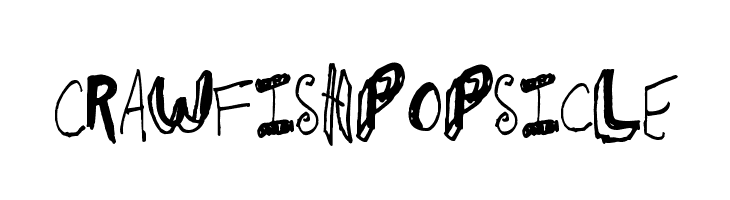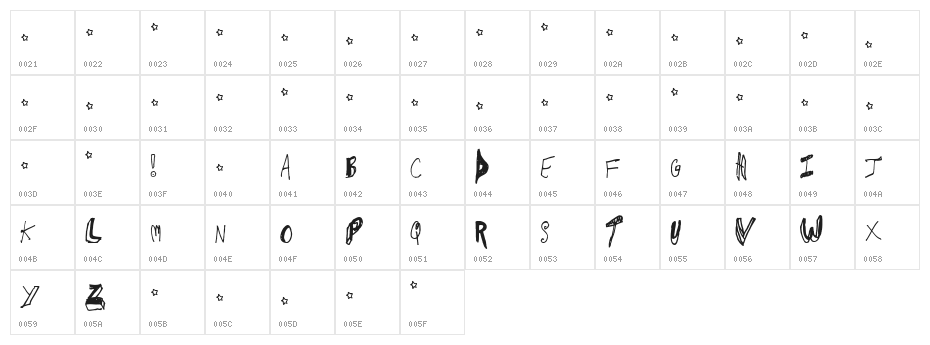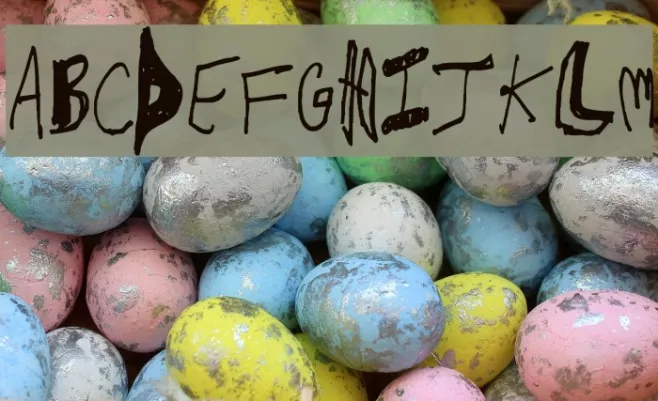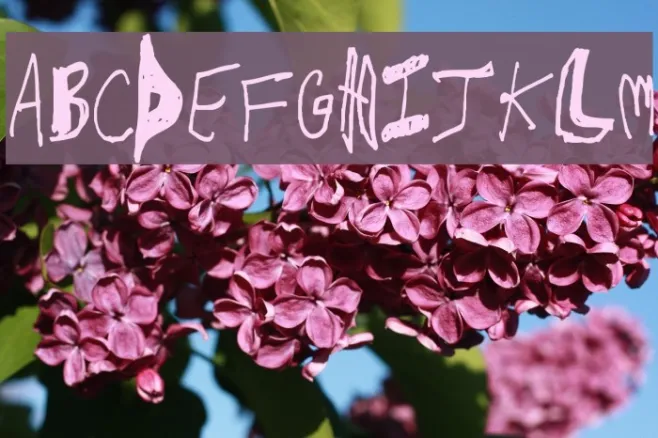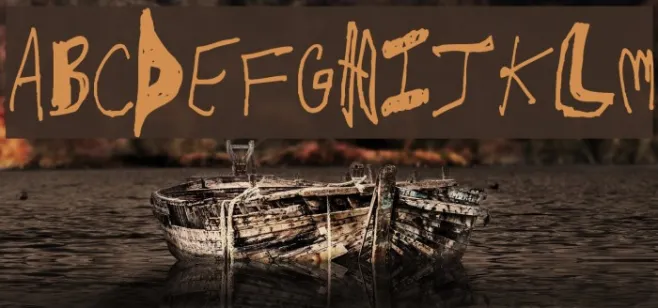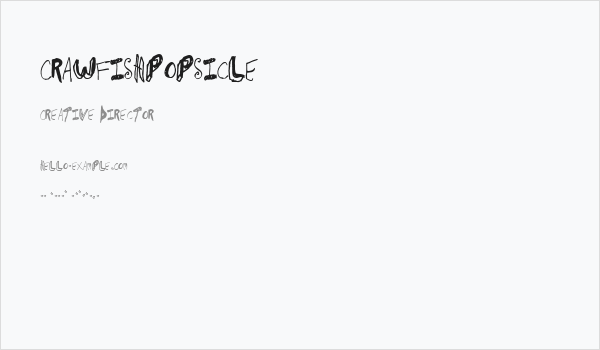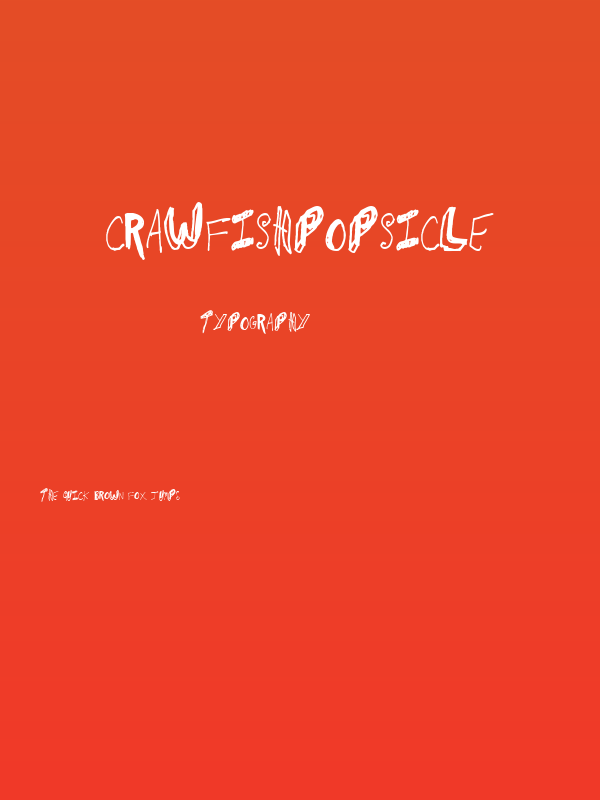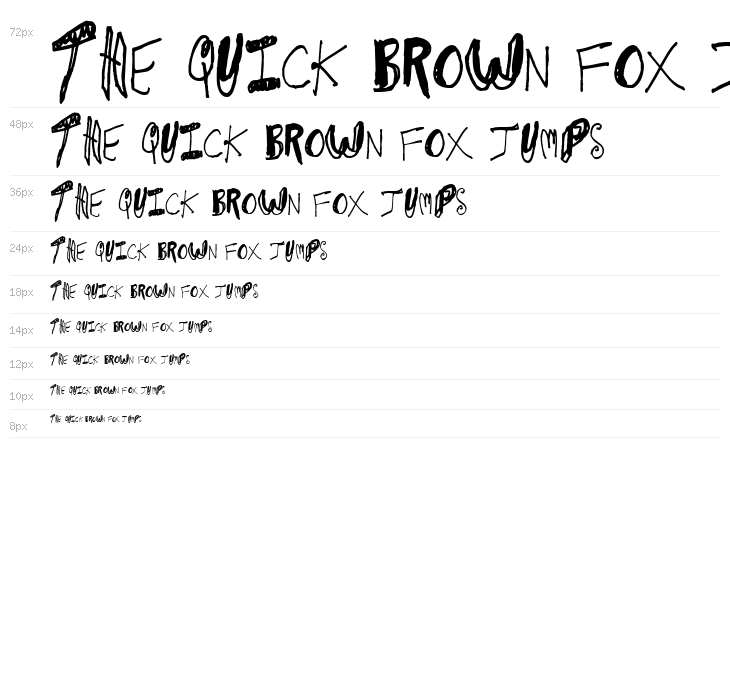
CrawfishPopsicle Font
CrawfishPopsicle Description
This font features a playful and eclectic design, with each character exhibiting a unique, hand-drawn appearance. The letters are irregular and varied in style, with some characters appearing bold and others more delicate. The overall look is reminiscent of a whimsical, artistic sketch, with a mix of thick and thin strokes that add to its quirky charm. The uppercase and lowercase letters maintain this artistic inconsistency, creating a dynamic and lively visual effect. The font's distinctive style makes it stand out, with its creative and informal vibe.
| Overall Style | Whimsical, Artistic |
| Proposed Projects | Ideal for creative projects such as children's book covers, playful posters, artistic branding, and unique invitations. |